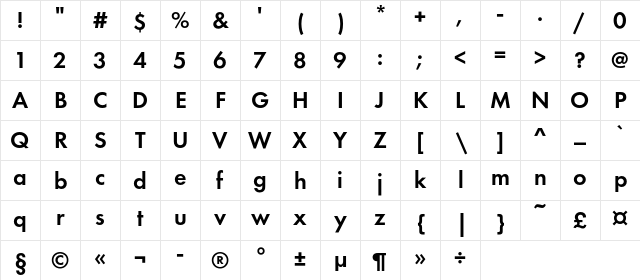
Complete FuturaDemiC Regular glyph index. Displaying only characters natively supported by FuturaDemiC Regular font.
FuturaDemiC has a distinctly futuristic character, with geometric precision and clean angles that feel at home in technology, gaming, and sci-fi contexts.